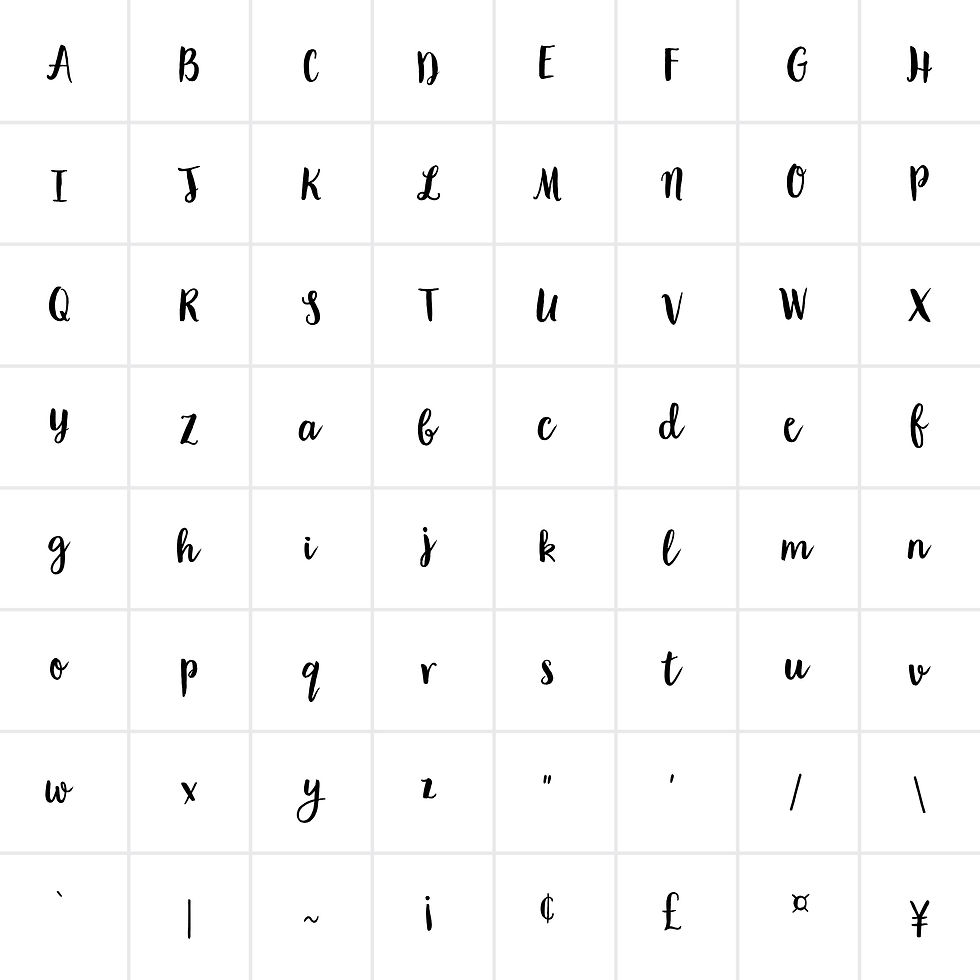
GARDEN GROWN REGULAR FONT is a lovely hand-painted quirky script font. This script comes with alternates, ligatures, and has Latin Pro Characters.
Garden Grown Regular Font